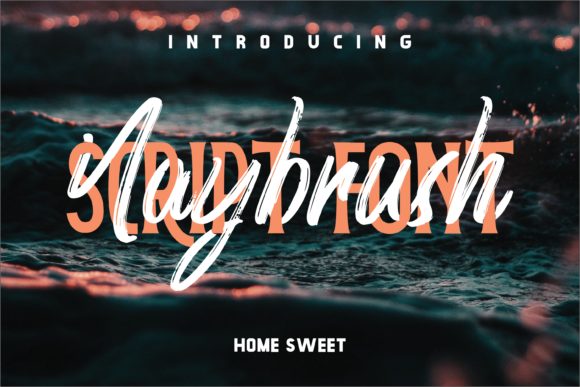
Naybrushy Font
Dive into the world of Naybrushy Font, a captivating and bold handwritten font that exudes power and personality. Crafted by the skilled hands of Home Sweet, Naybrushy is a masterpiece that will transform your design projects, leaving an indelible mark on the minds of your audience.
With every stroke and curve, Naybrushy dances across the page, embodying the essence of creativity and expression. Its bold lines command attention, while its carefully crafted details reveal a delicate touch that adds depth and intrigue to your designs.
Unleash the limitless possibilities of Naybrushy and embark on a journey of visual storytelling. Its versatility knows no bounds, making it the perfect choice for a wide range of projects, from eye-catching logos and branding to stunning invitations and social media posts.
Naybrushy's bold presence will captivate your audience, leaving them in awe of your design prowess. Its ability to convey power and emotion makes it ideal for expressing your unique brand identity and creating a lasting impression.
Experience the transformative power of Naybrushy Font and watch your designs come to life. Its bold strokes and enchanting details will add a touch of magic to your creative endeavors, leaving a lasting impression on all who encounter them.
Embrace the boldness of Naybrushy Font and elevate your designs to new heights. Its captivating presence and ability to convey power and emotion will leave your audience spellbound.